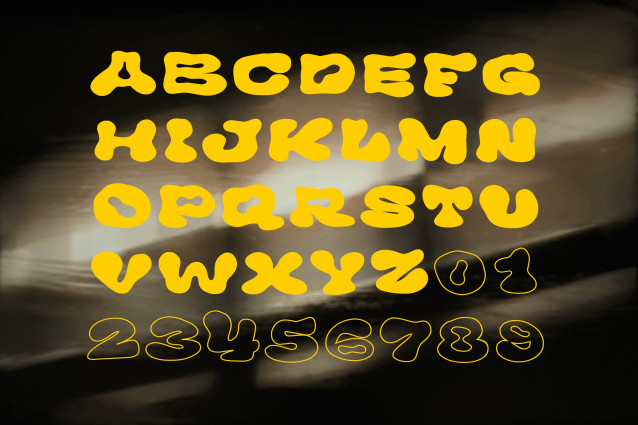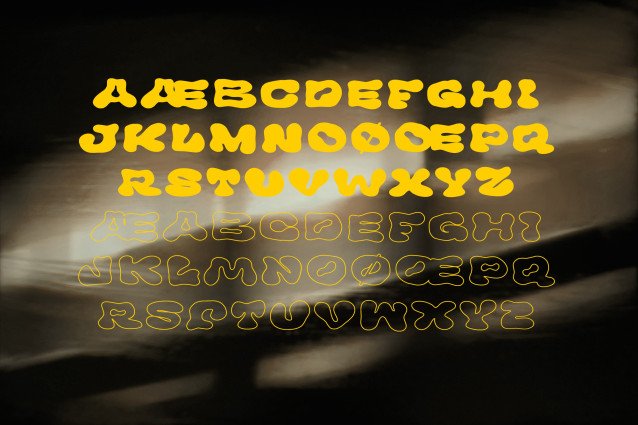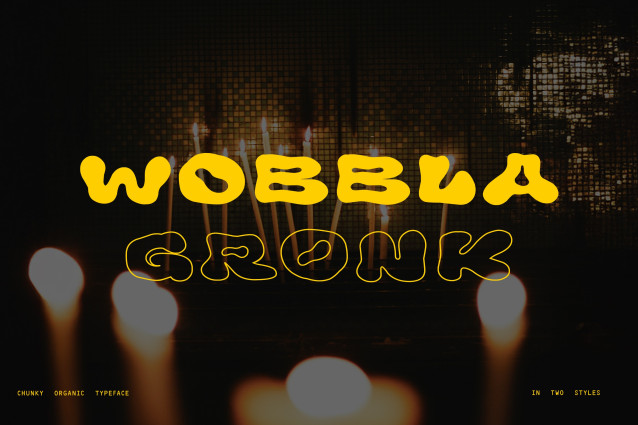
Wobbla Gronk Font
Wobbla Gronk Font is a quick and fun new blobby bubble letter font, in two styles. It is inspired by the stylings of great modern lettering artists, and hopefully perfect for your logos and signs. It comes as a standard filled font, as well as an outline version.